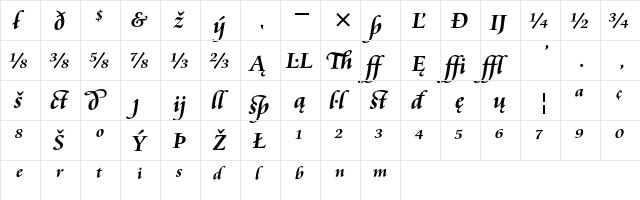
Cataneo Bold Extension
Design Context for Cataneo Typeface
Cataneo takes a measured approach to typography — its balanced proportions and neutral character make it a reliable workhorse for both digital and print work. The heavy weight commands attention and anchors typographic hierarchies.